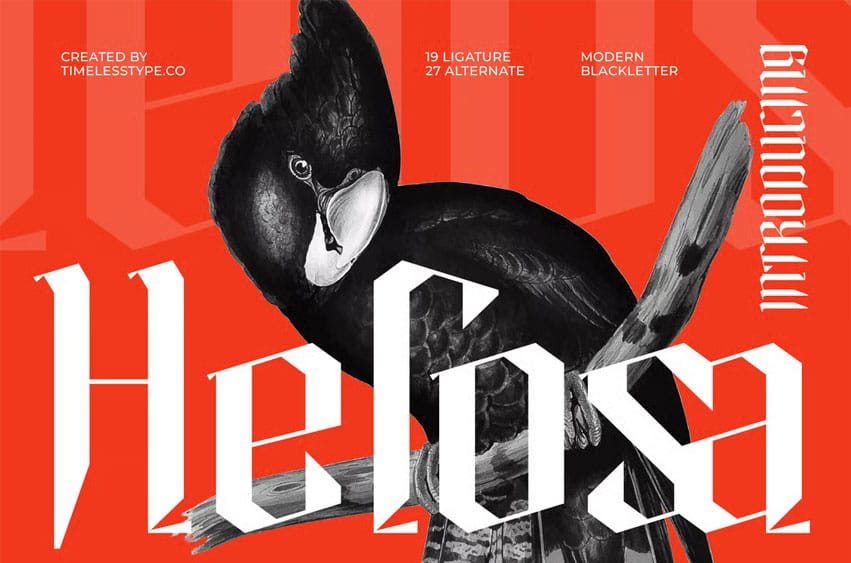
Helosa Font
Helosa Font is a modern blackletter display font with sharp angles, bold strokes, and a contemporary gothic attitude. Blending the classic structure of medieval lettering with modern geometric cuts, this typeface delivers a striking and edgy visual impact—perfect for branding, posters, album covers, streetwear graphics, esports titles, tattoo designs, and bold editorial layouts. Its aggressive yet refined design gives every project a powerful, unforgettable presence.
Featuring 19 ligatures and 27 alternates, Helosa offers extensive creative flexibility for crafting unique wordmarks, stylized gothic compositions, decorative logos, and highly expressive headlines. Its commanding silhouette, carved details, and modern blackletter flair make it ideal for designers seeking a dramatic, dark, and artistically fierce typeface.
• Ligature
• Uppercase and lowercase
• Numbering and Punctuation